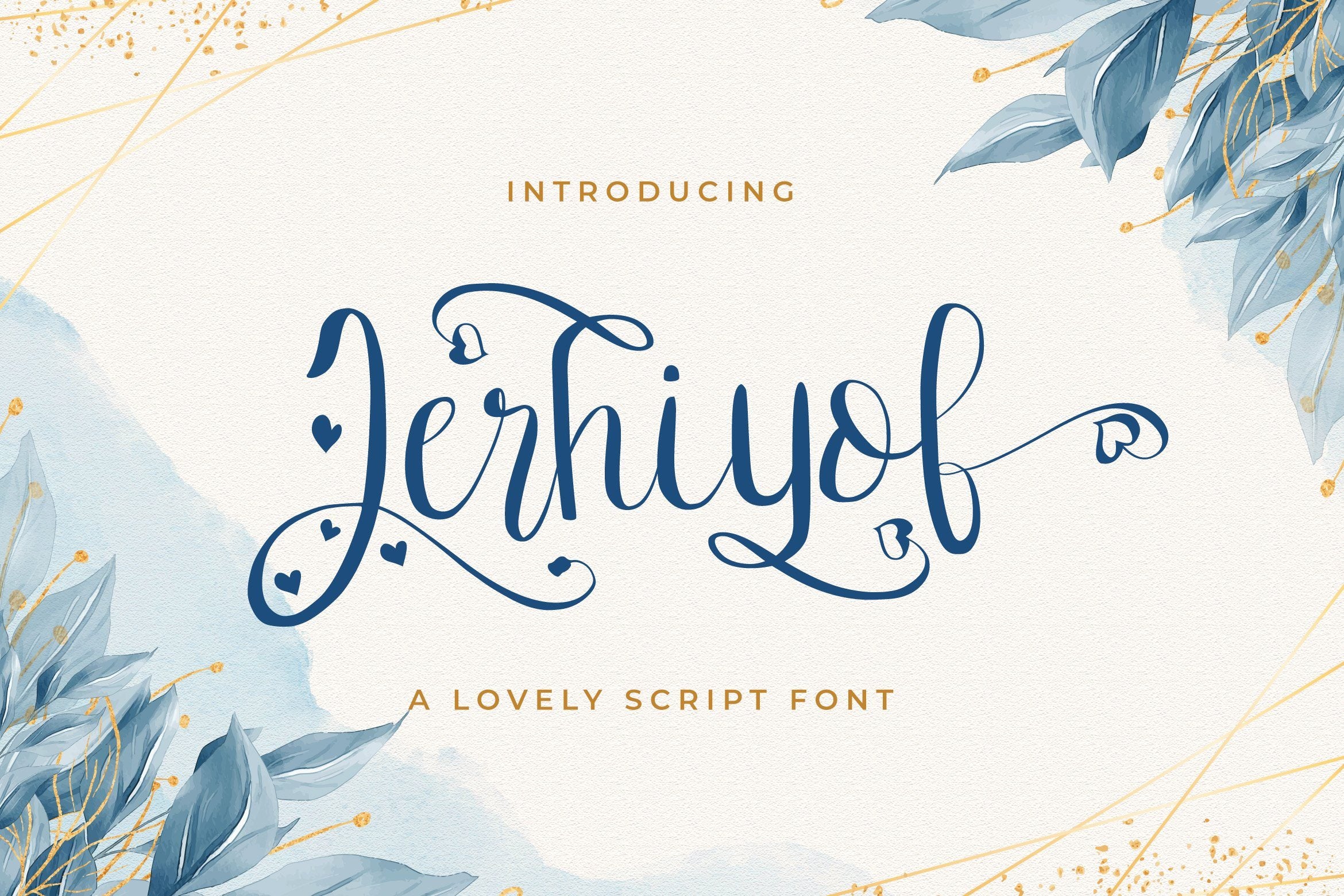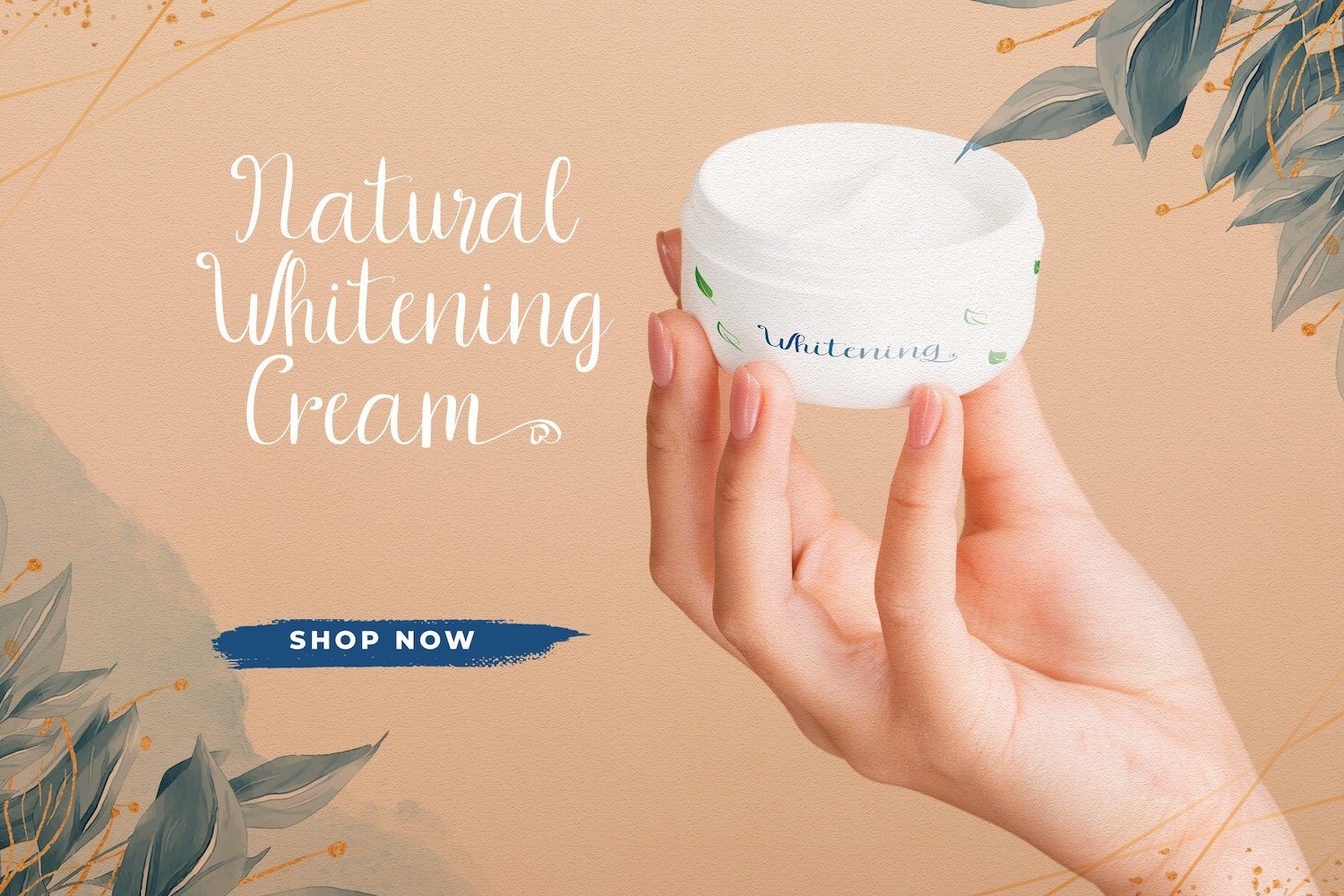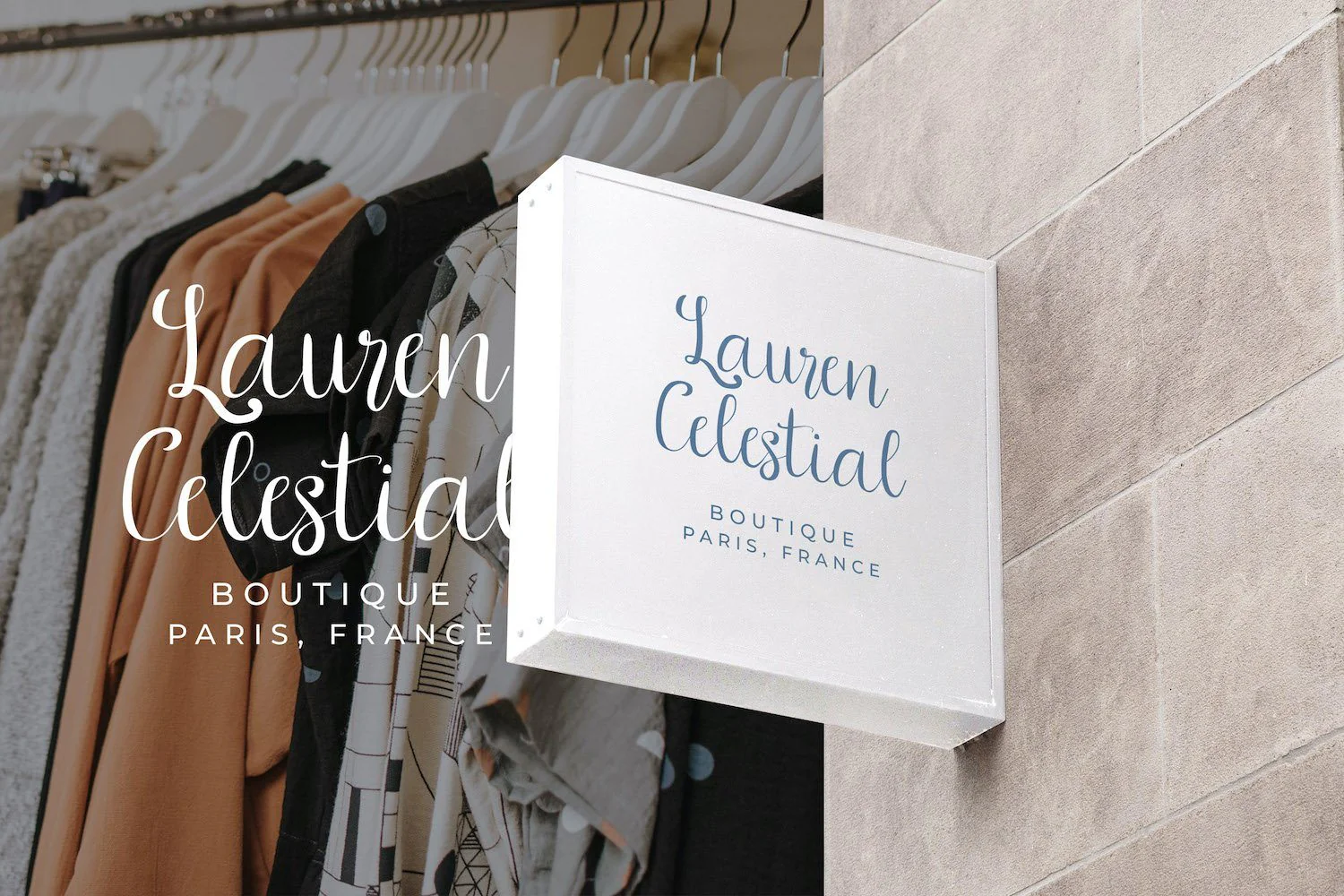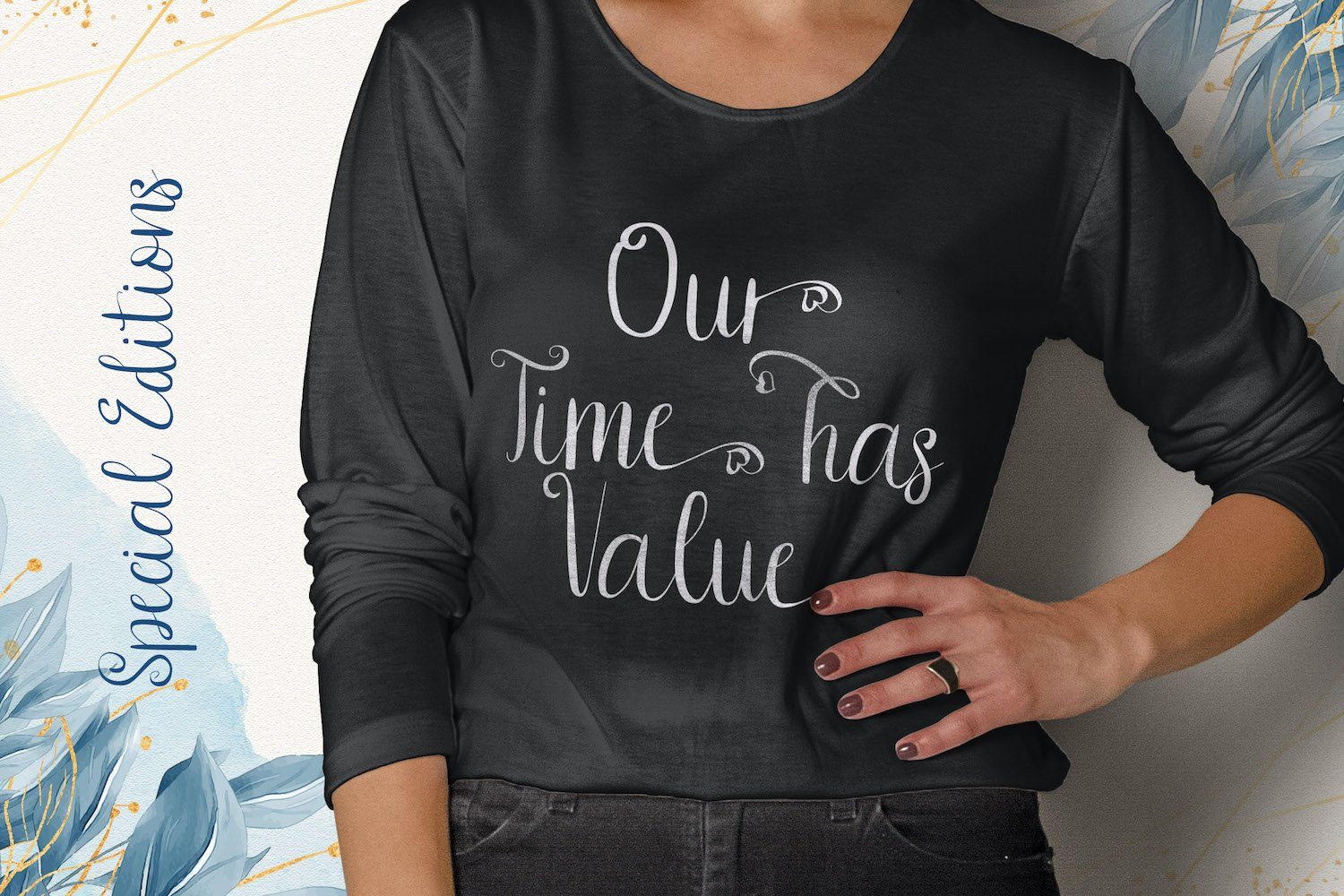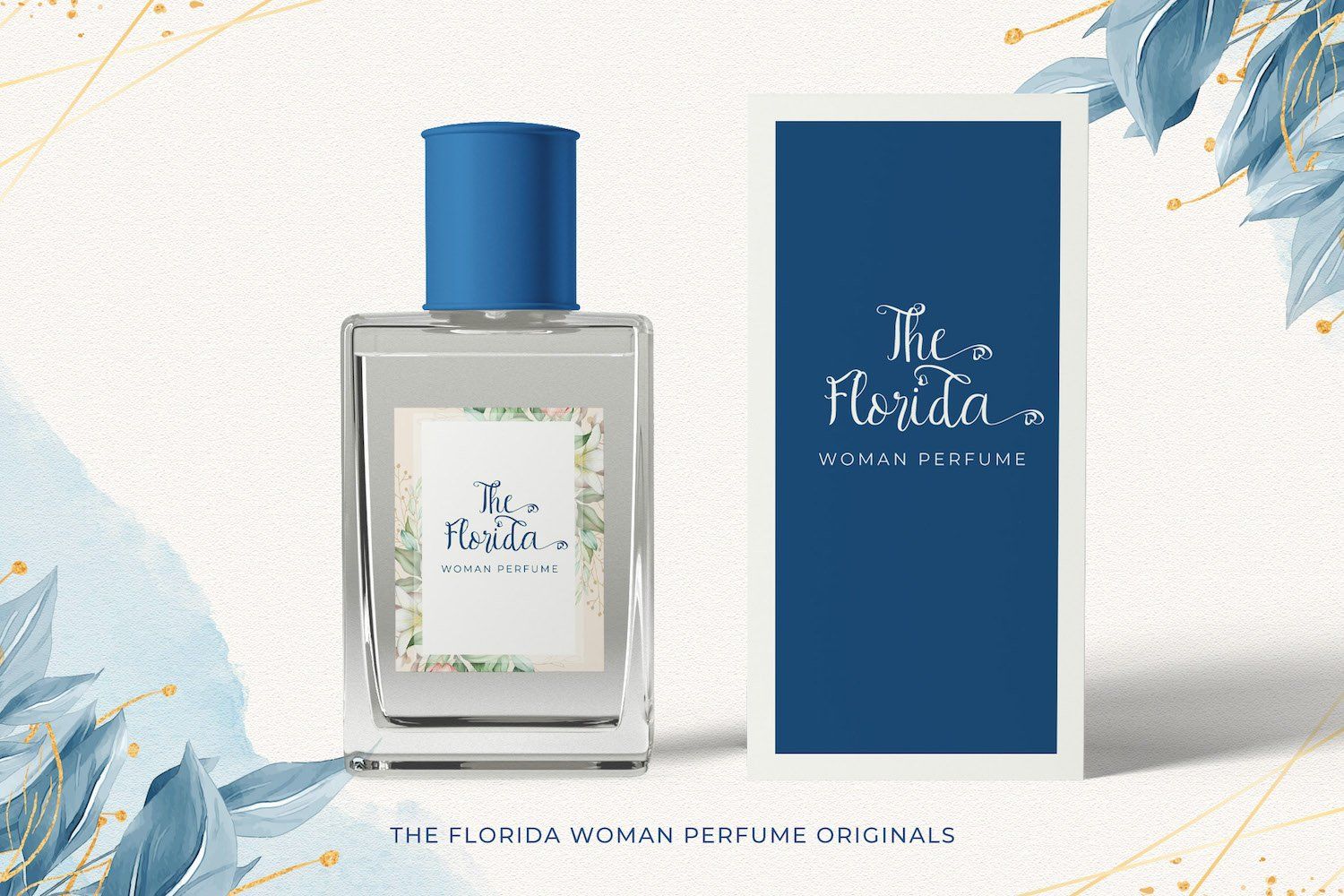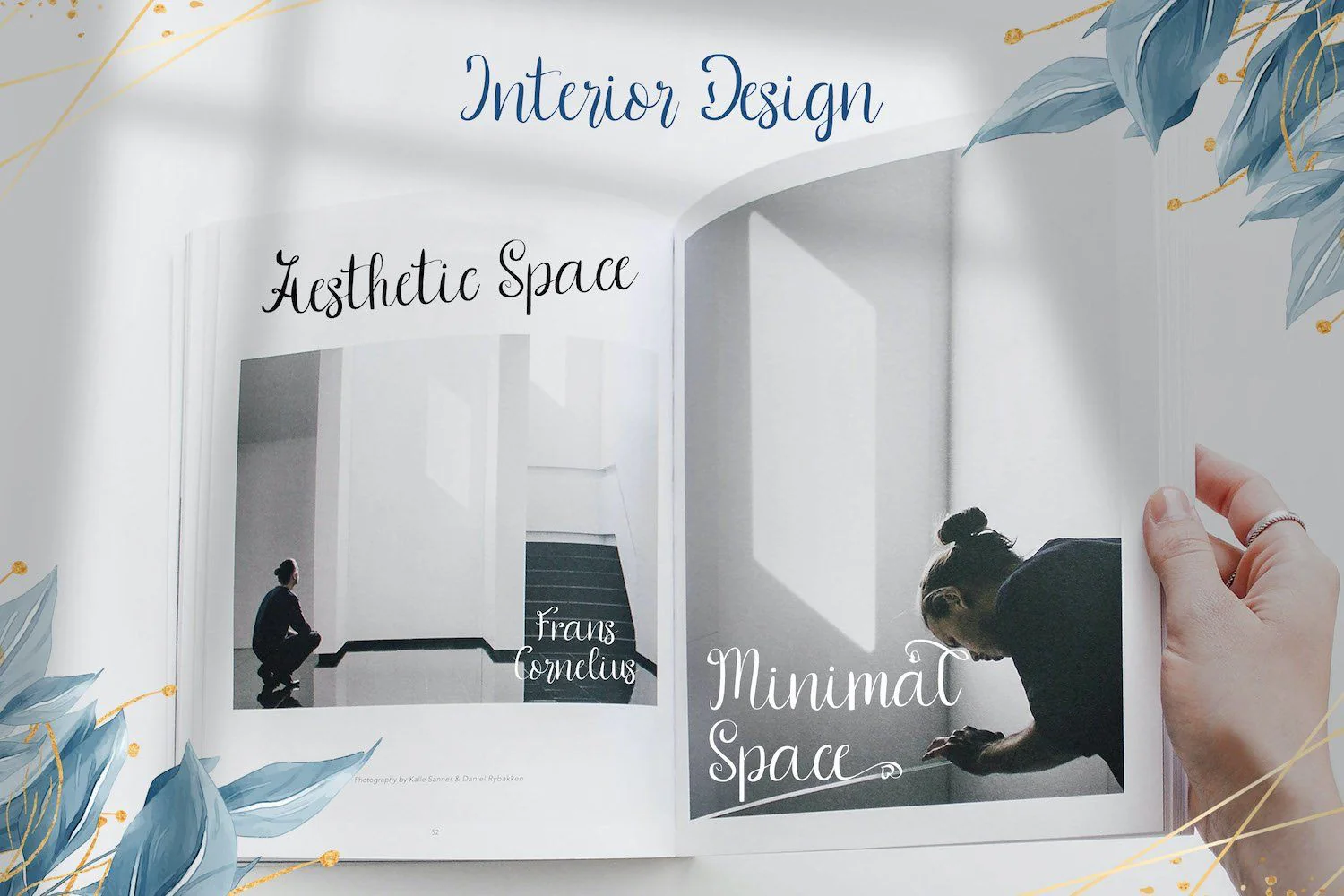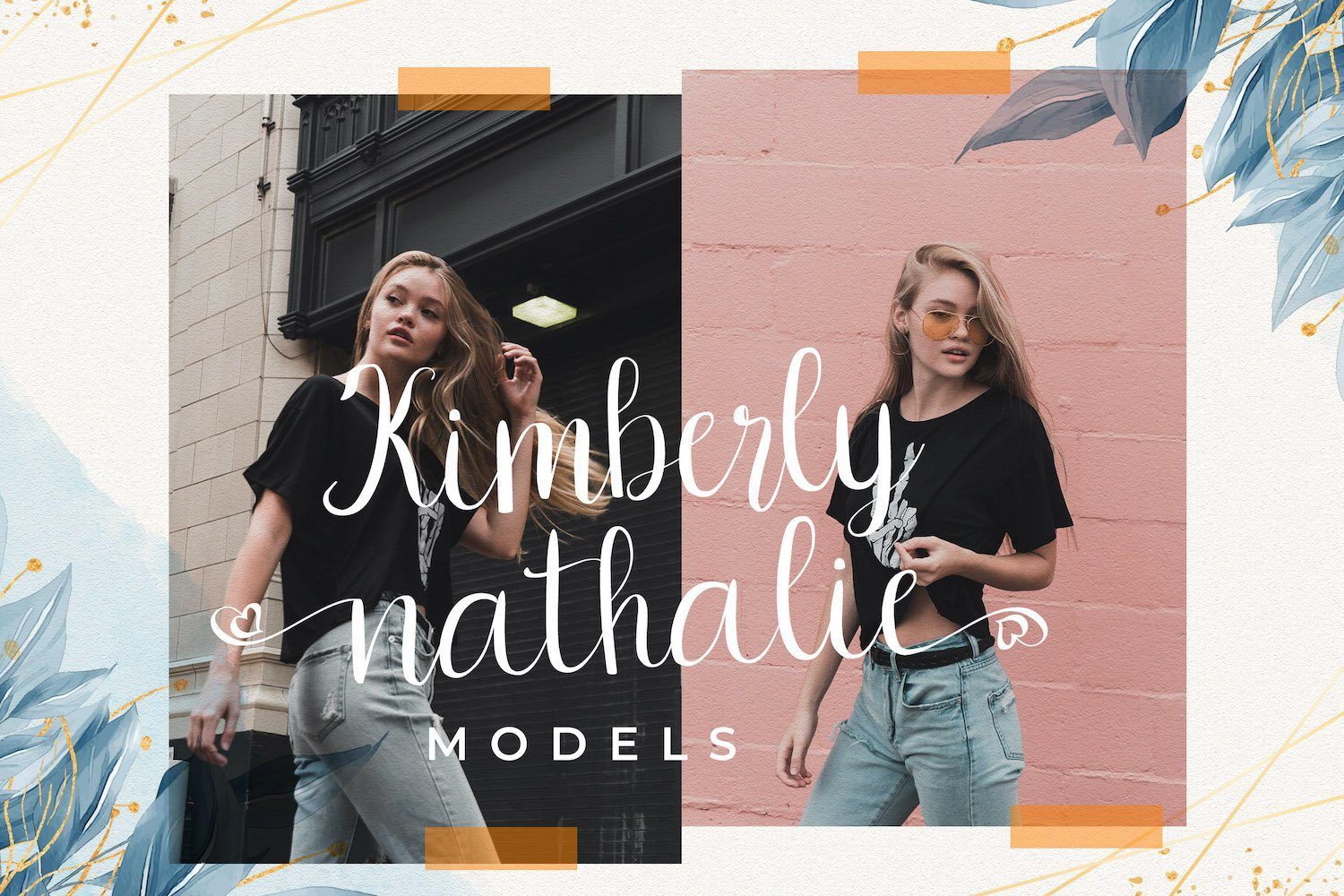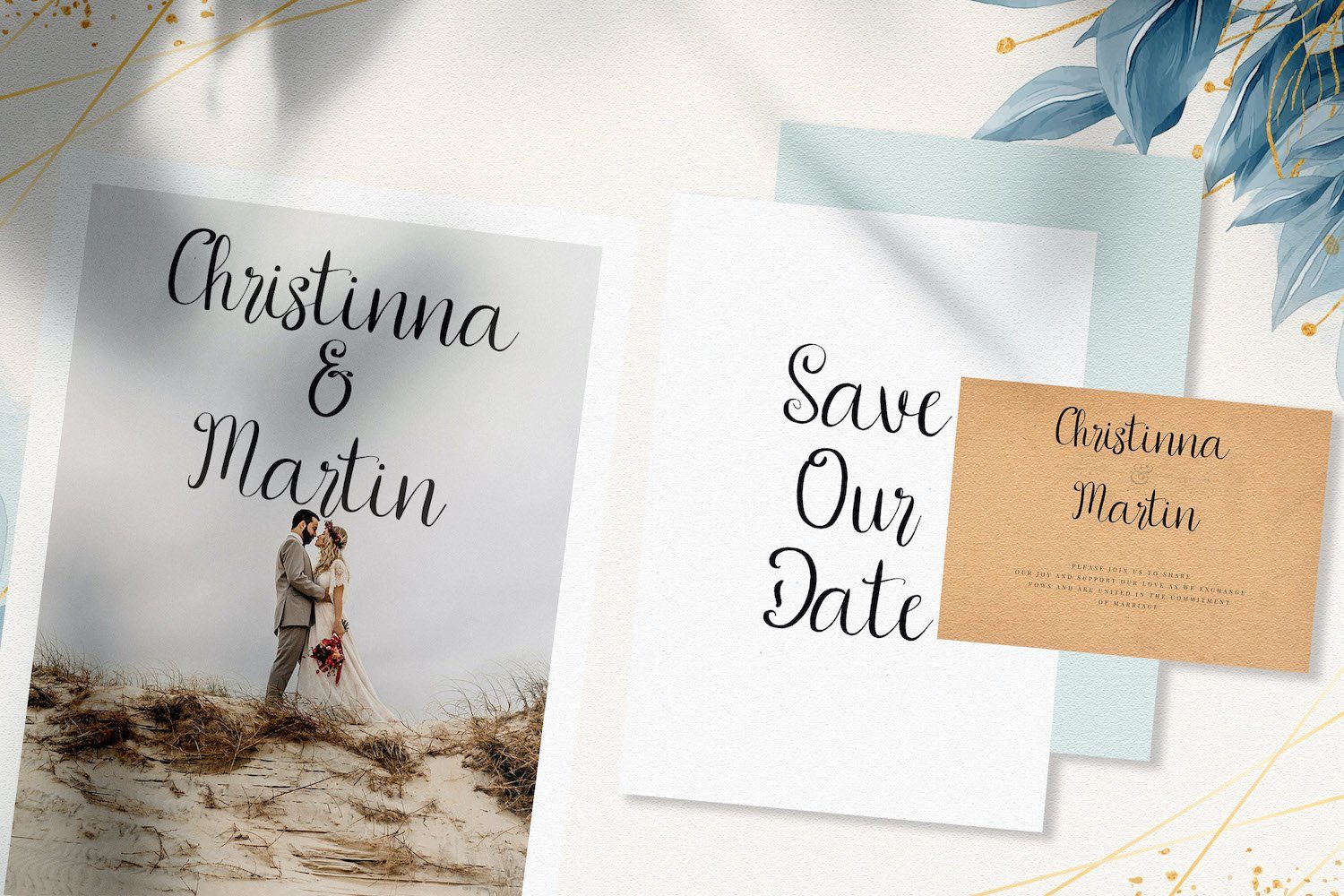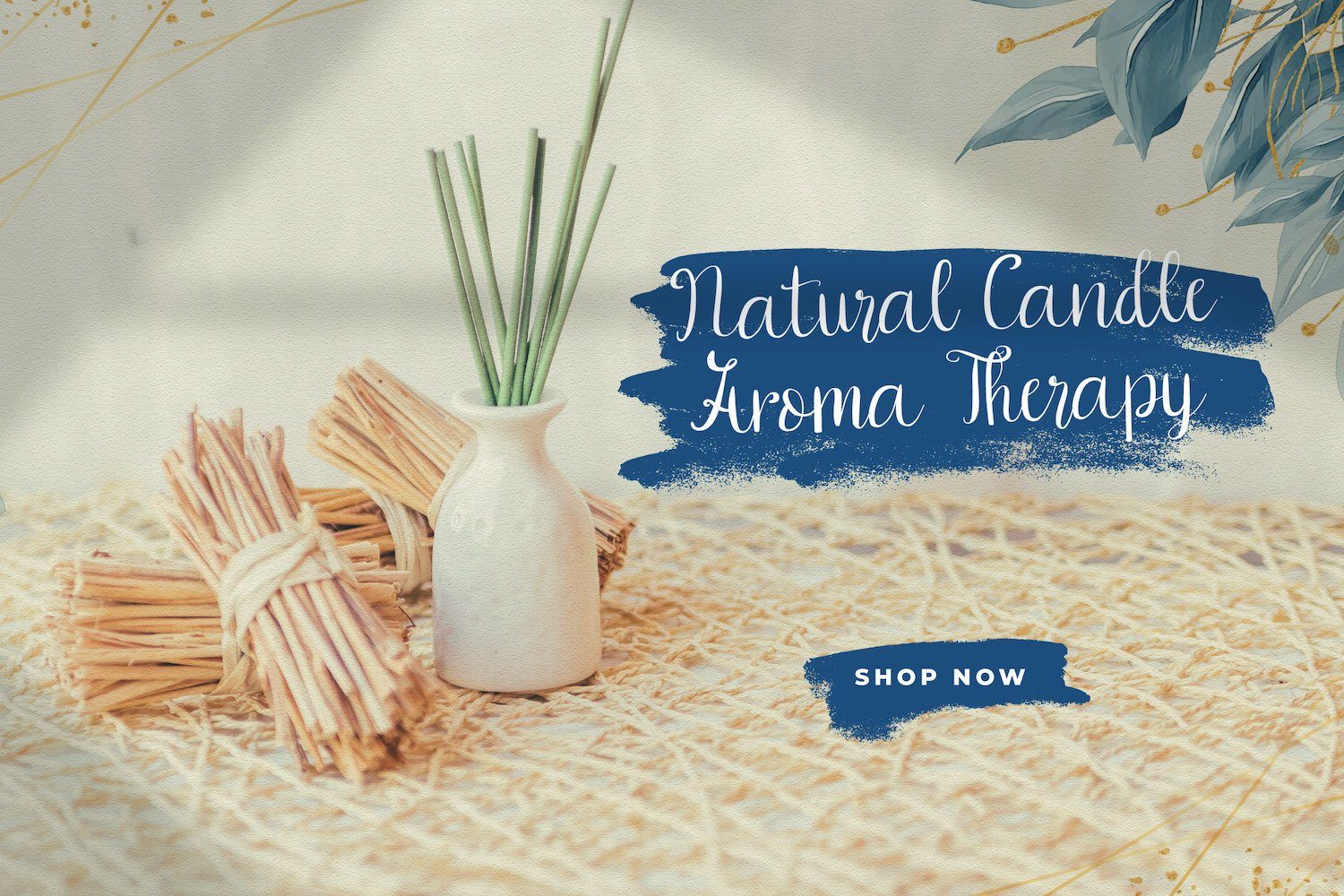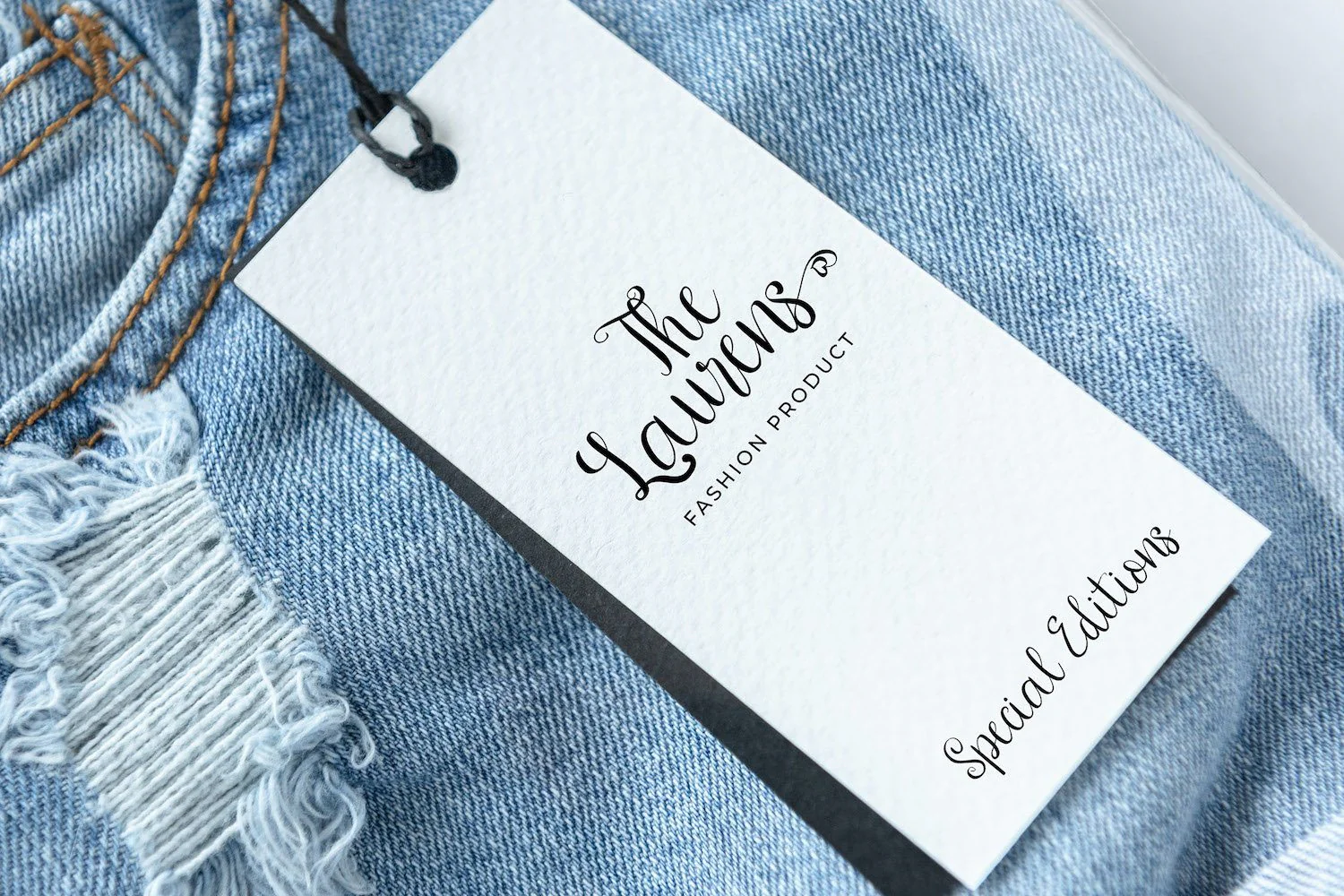
Jerhiyof - Lovely Script Font
Introducing Jerhiyof - Lovely Script Font
Jerhiyof is a delicate, elegant and flowing handwritten font. It has beautiful and well balanced characters and as a result, it matches a wide pool of designs. Add it to your most creative ideas and notice how it makes them come alive! This font is PUA encoded which means you can access all of the glyphs and swashes with ease! It features a varying baseline, smooth lines, gorgeous glyphs and stunning alternates.